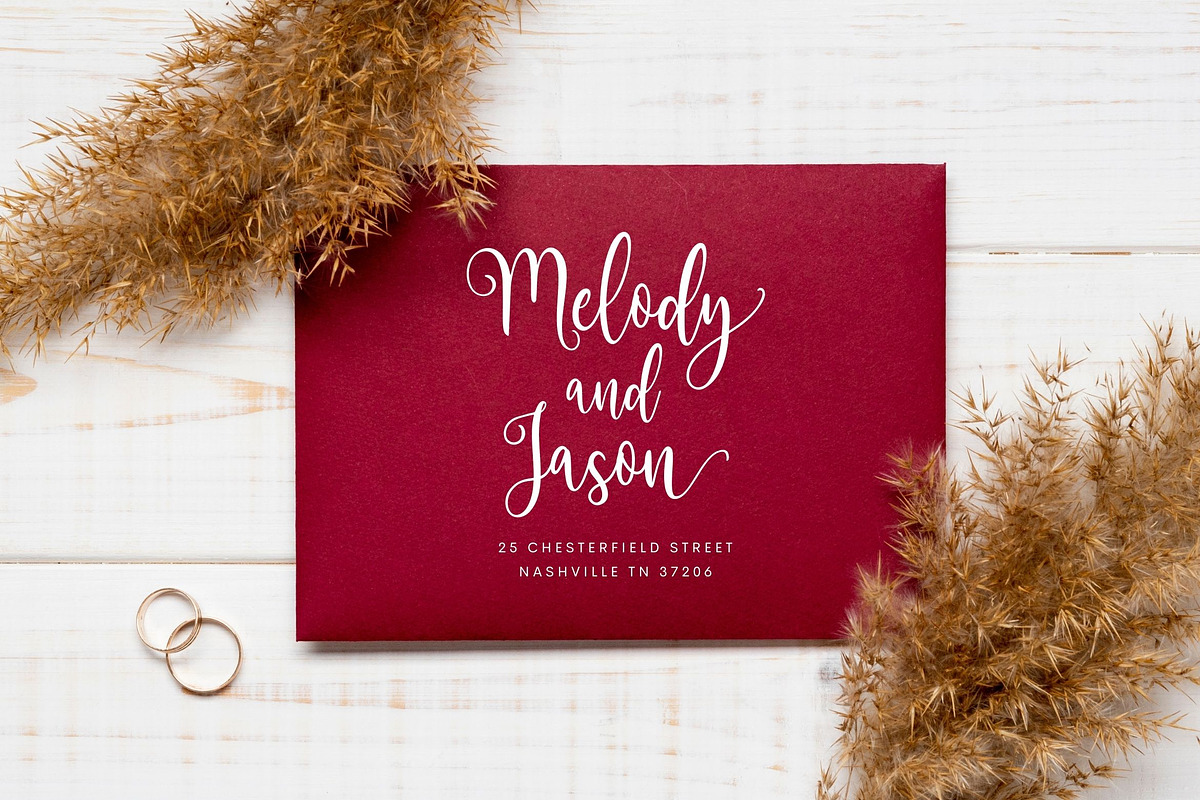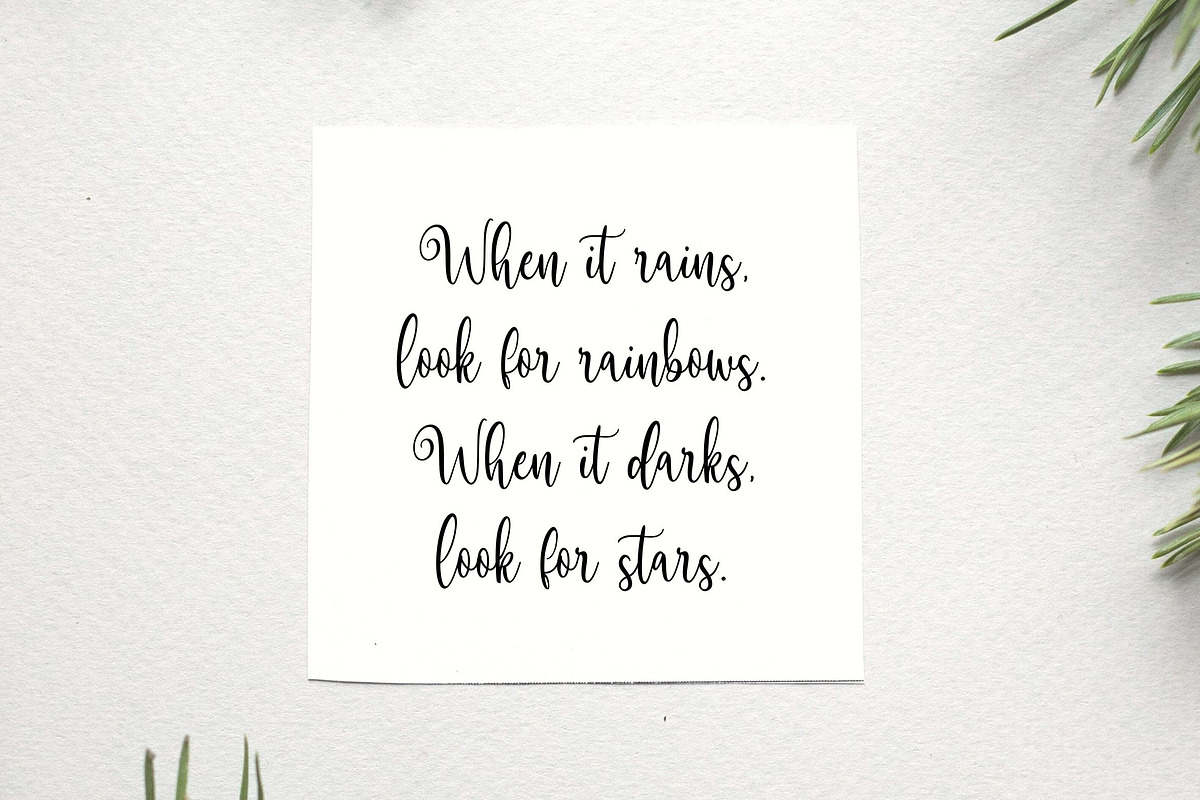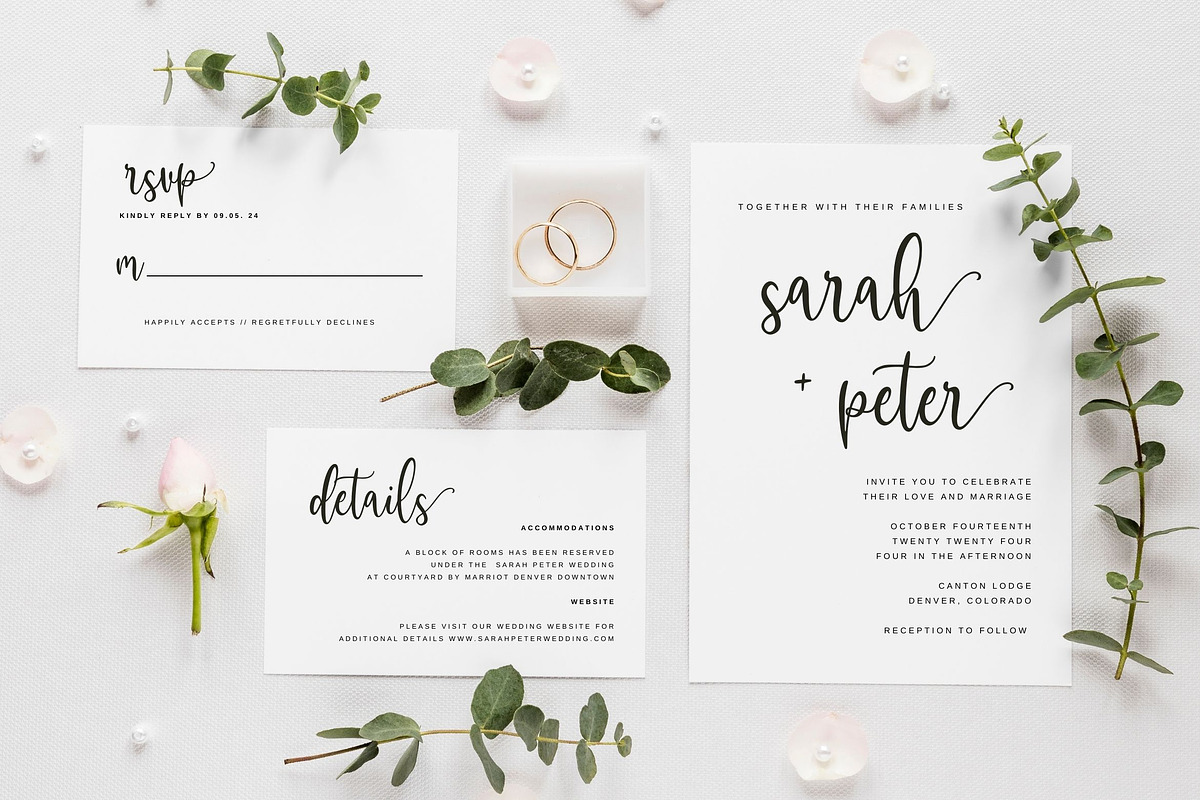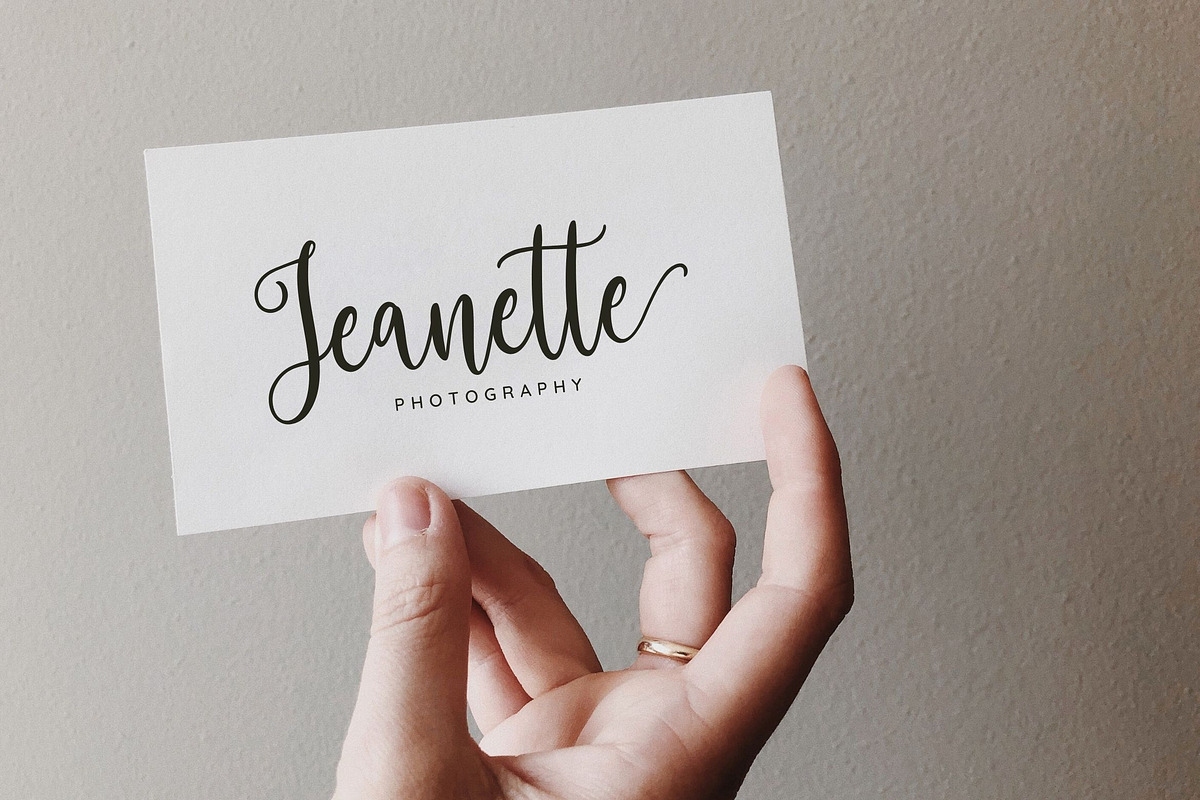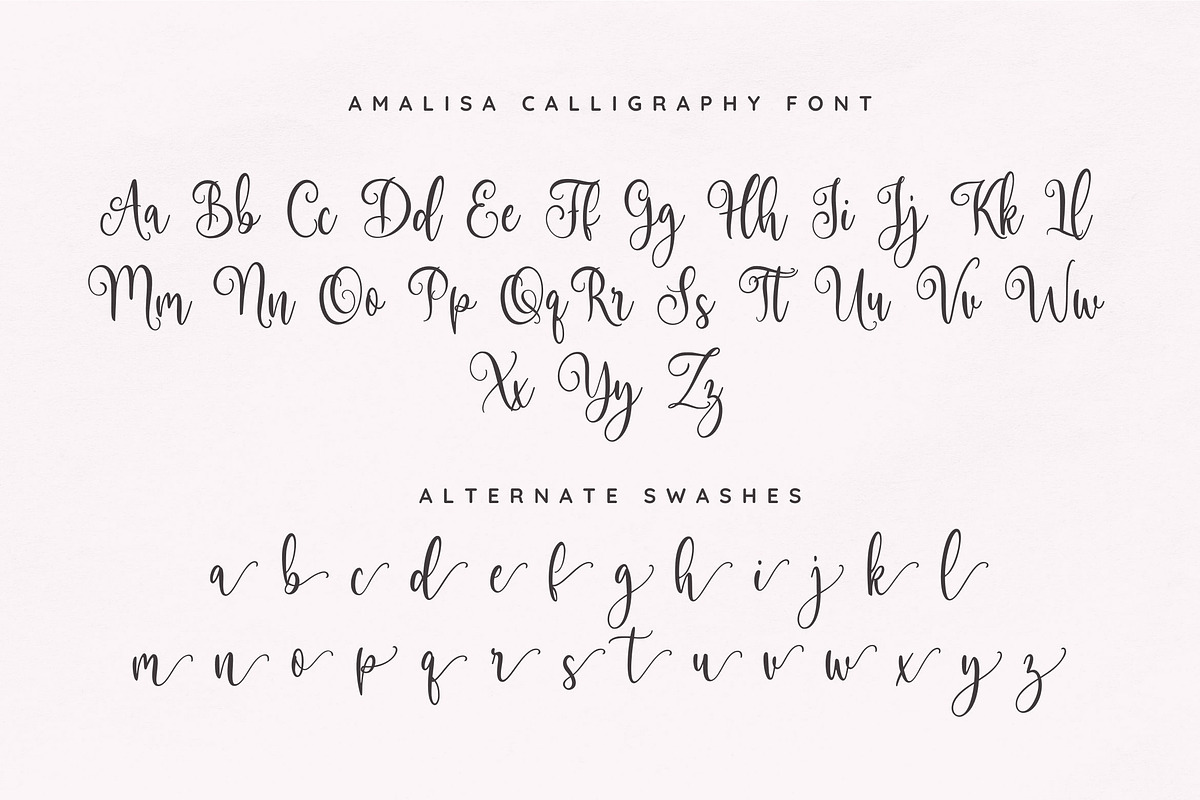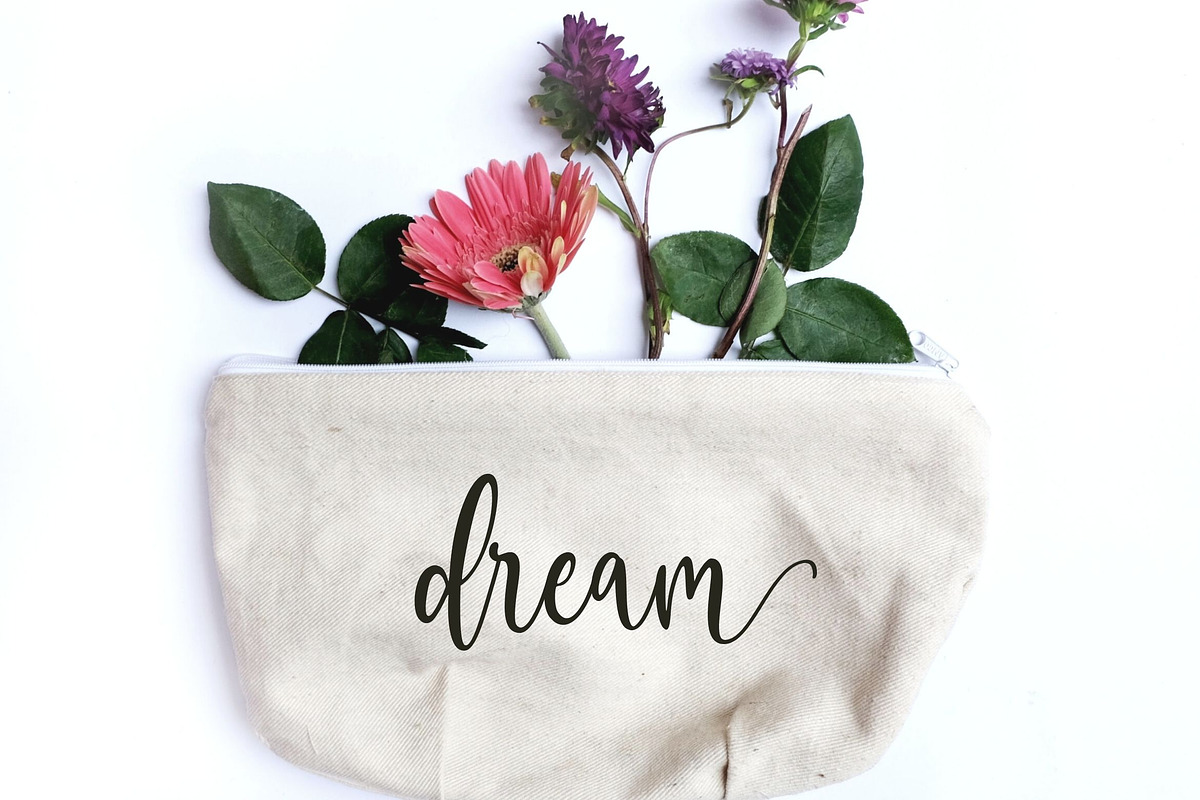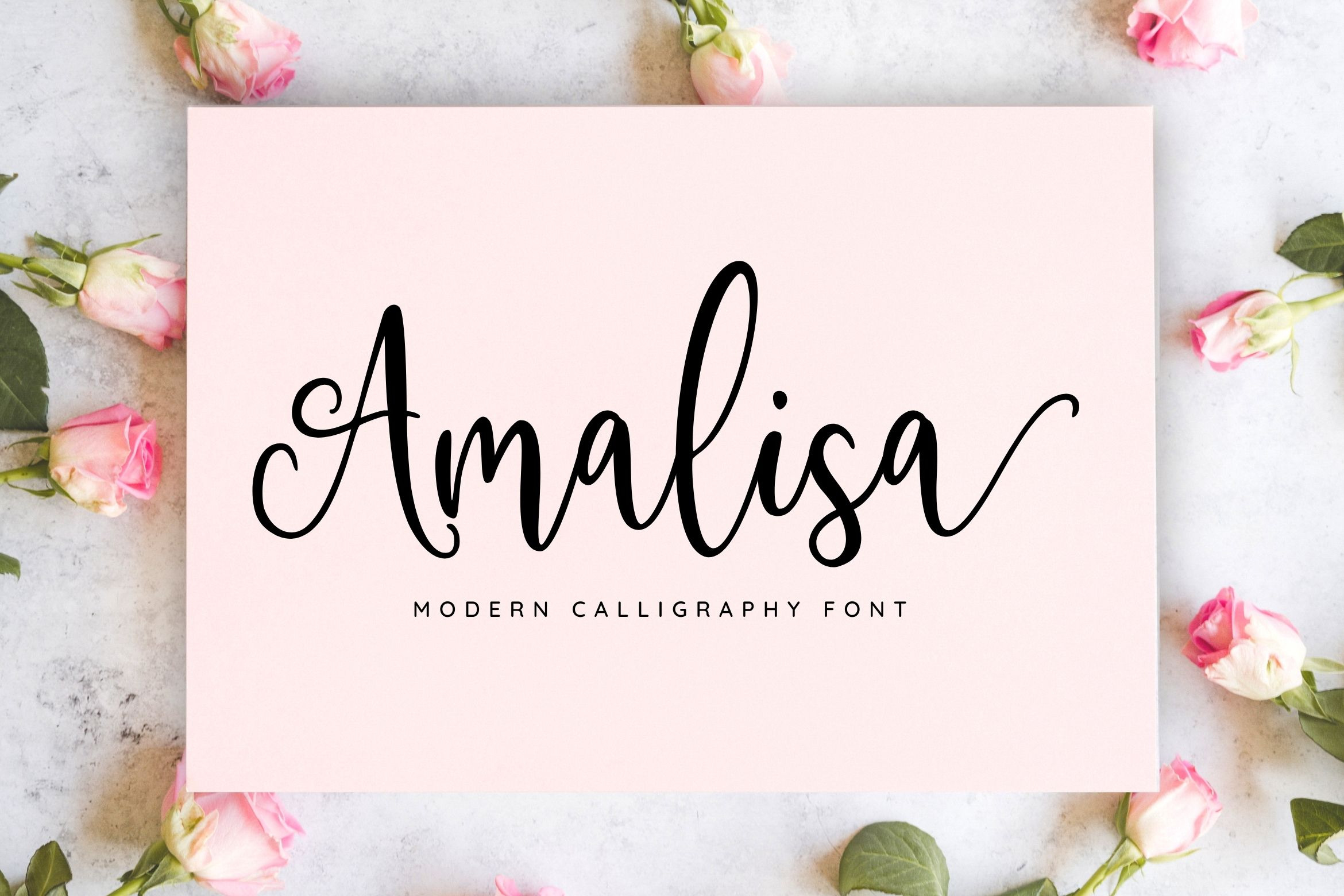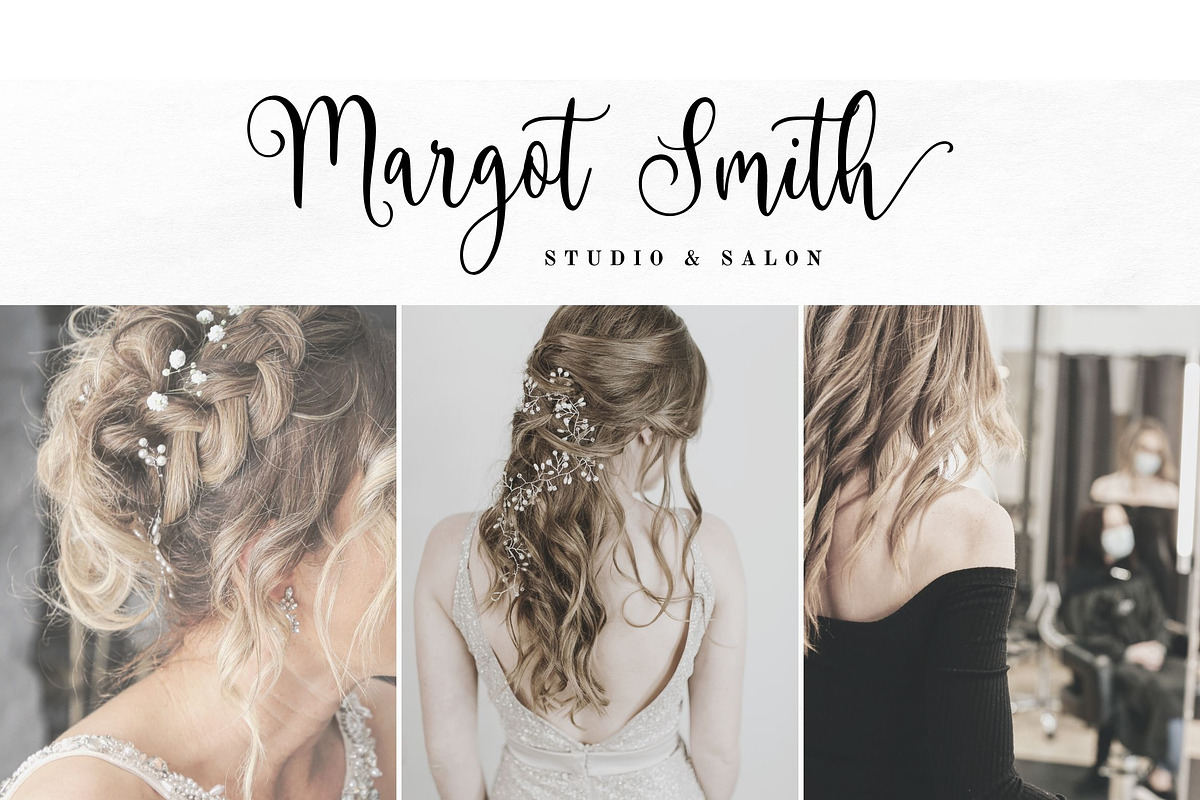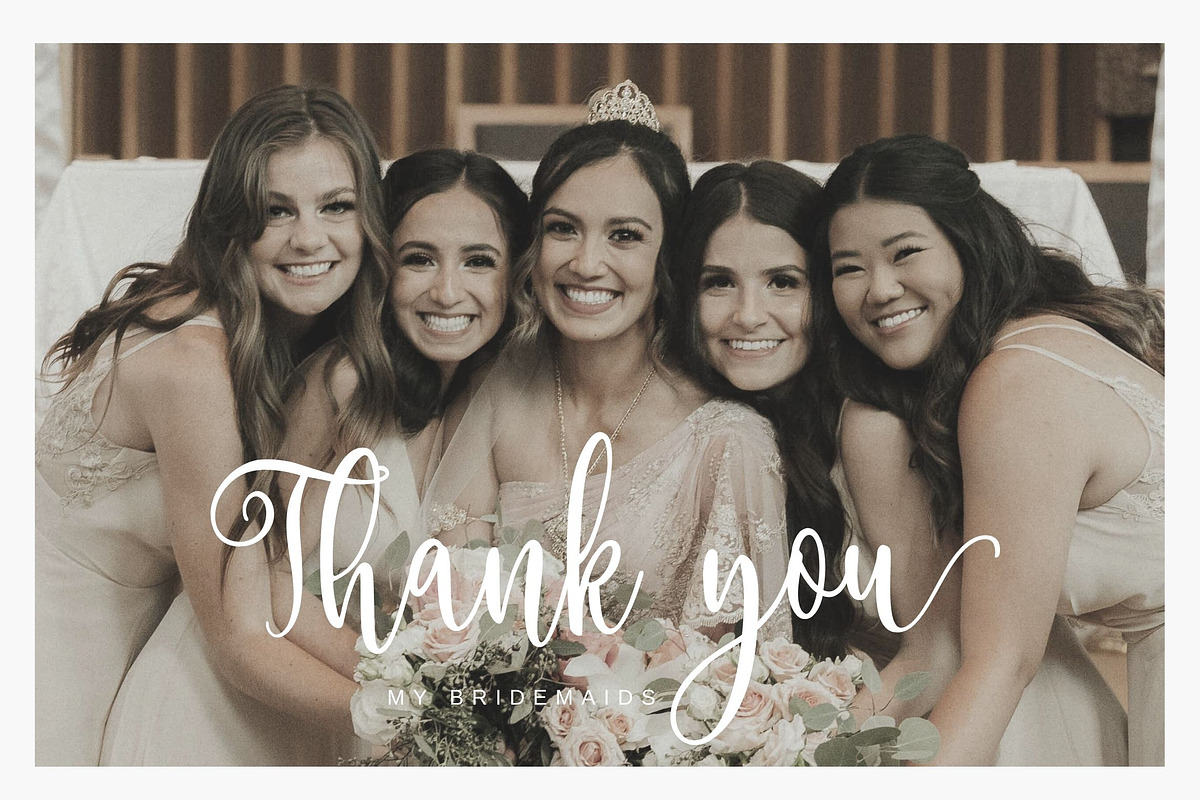
Amalisa Calligraphy Font
Introducing, Amalisa - a modern calligraphy script, elegant simplicity of lines.
Amalisa can be used for wedding invitations, calligraphy logos for branding, elegant websites, personalizing gifts, social media posts, and anything else your heart desires!
This font also suitable to be combined with sans serif that will make your design more perfect. Also already PUA Encoded!